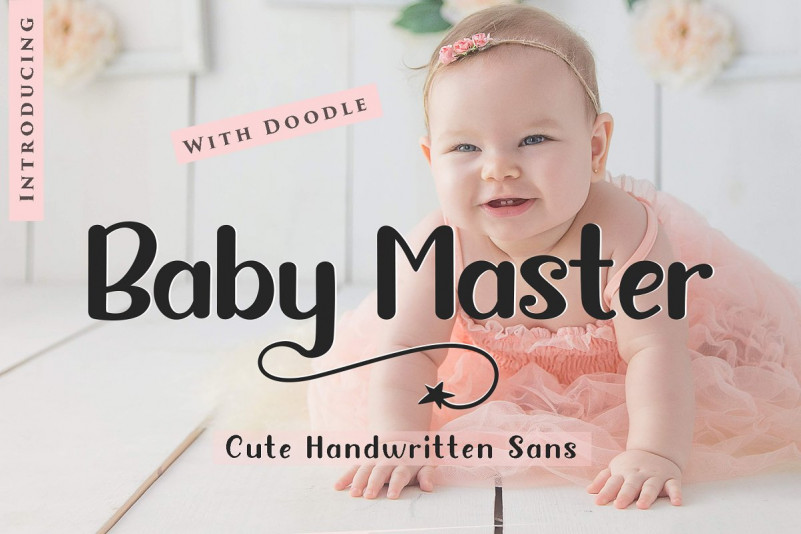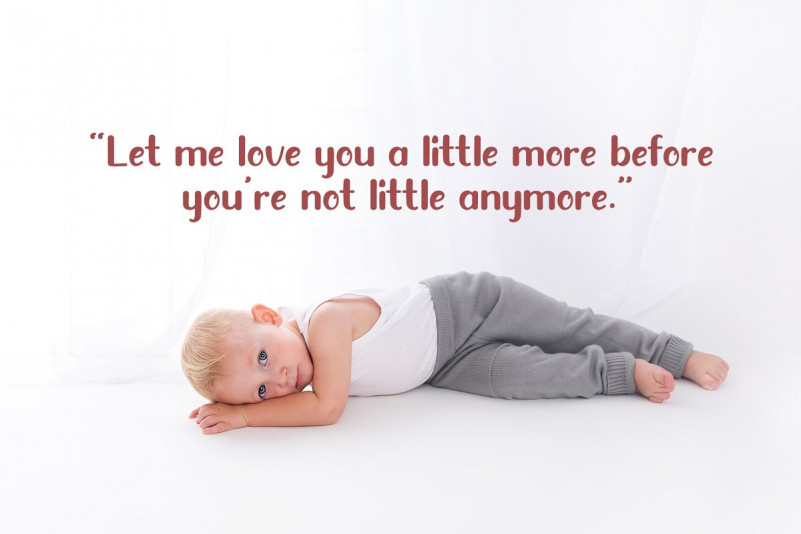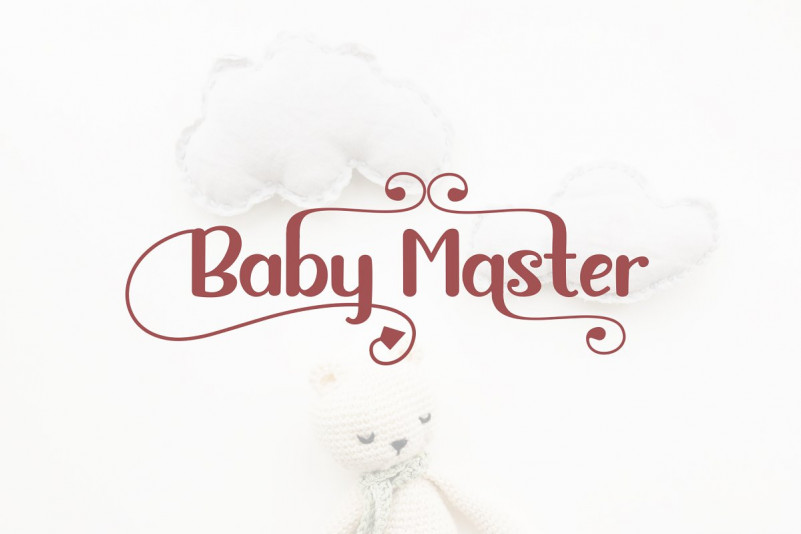
Baby Master Font
Hi font lovers we are introducing our new product. Baby master, this is a cute and fresh font created by our font designer Pig Master is equipped with upper and lower case letters and is completewith punctuation and multiligual support.
This cute Baby master can be used for various purposes. Such as titles, logos, correspondence, wedding invitations, letterheads, signage, labels, bulletins, posters, badges, Branding, Greeting Cards, etc.